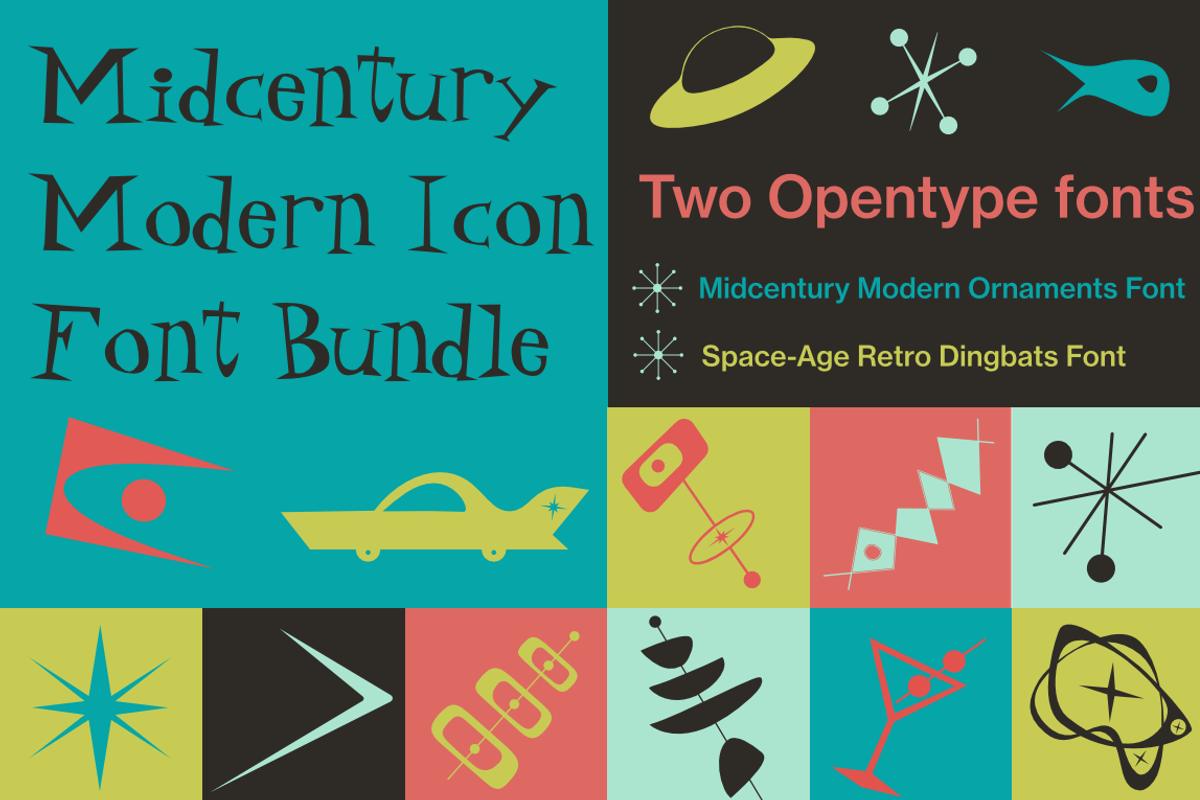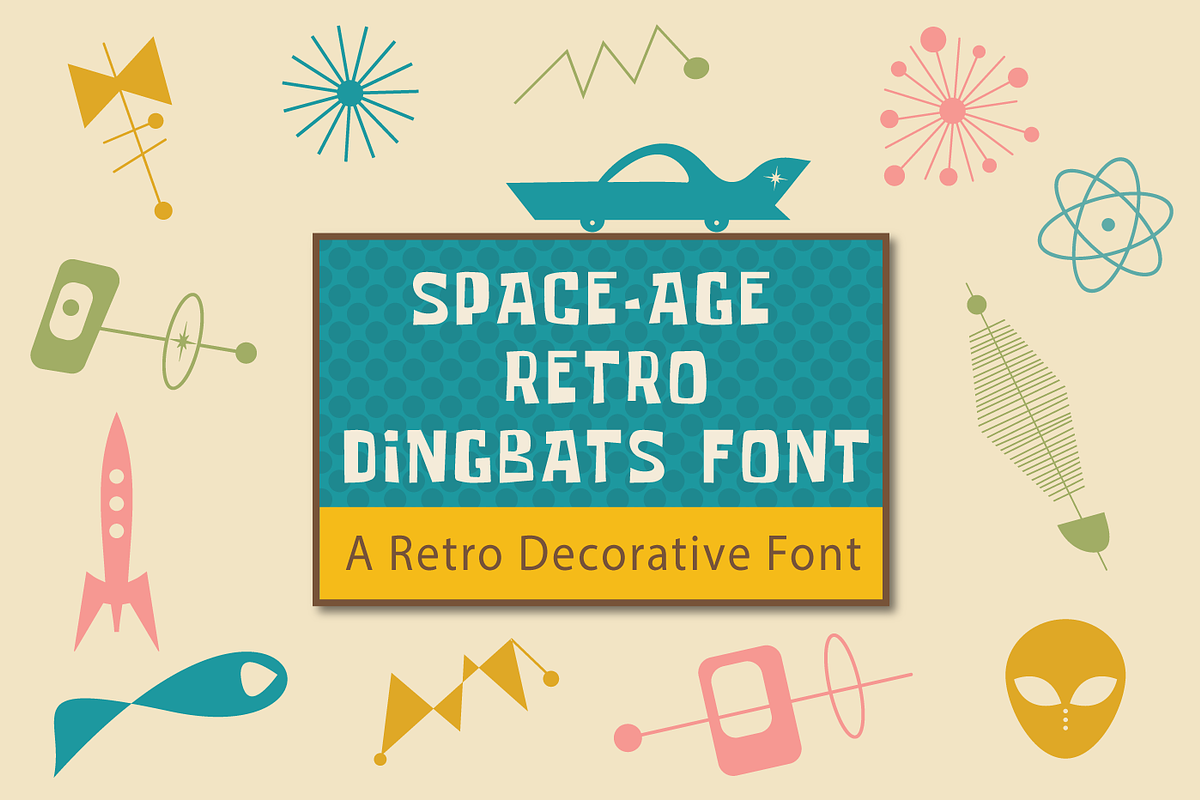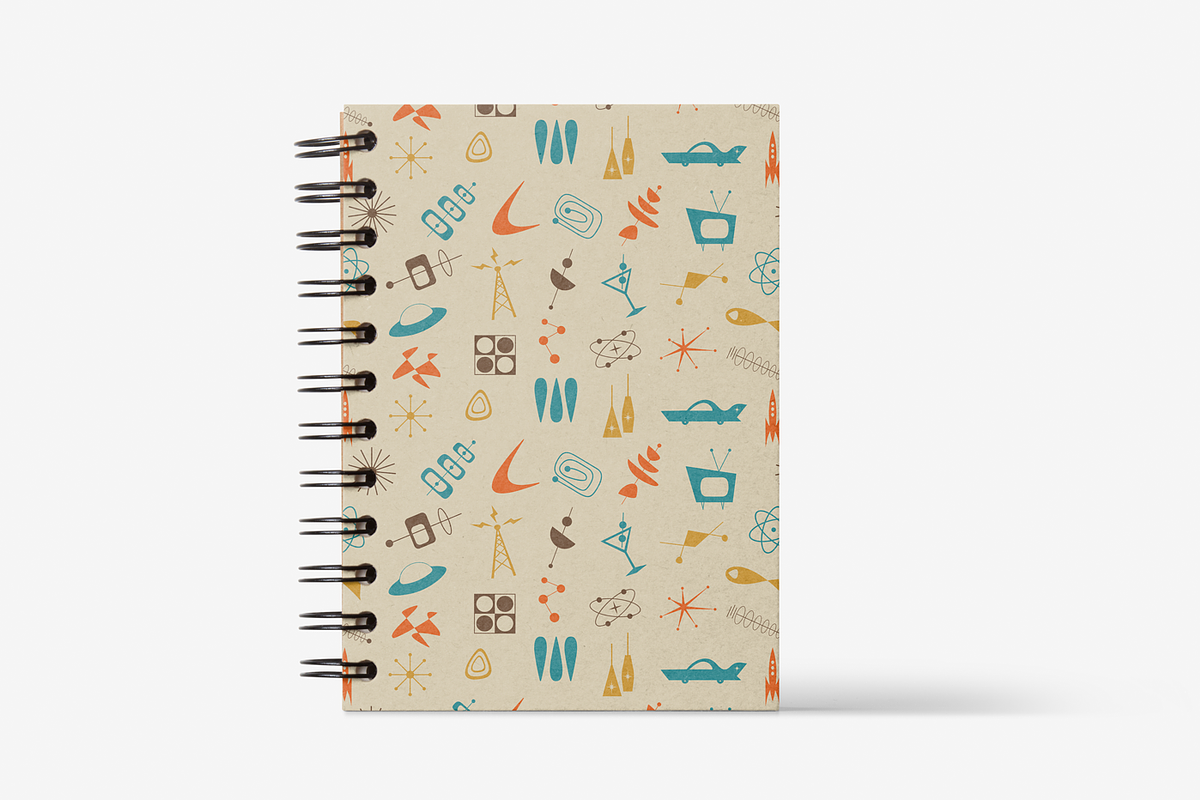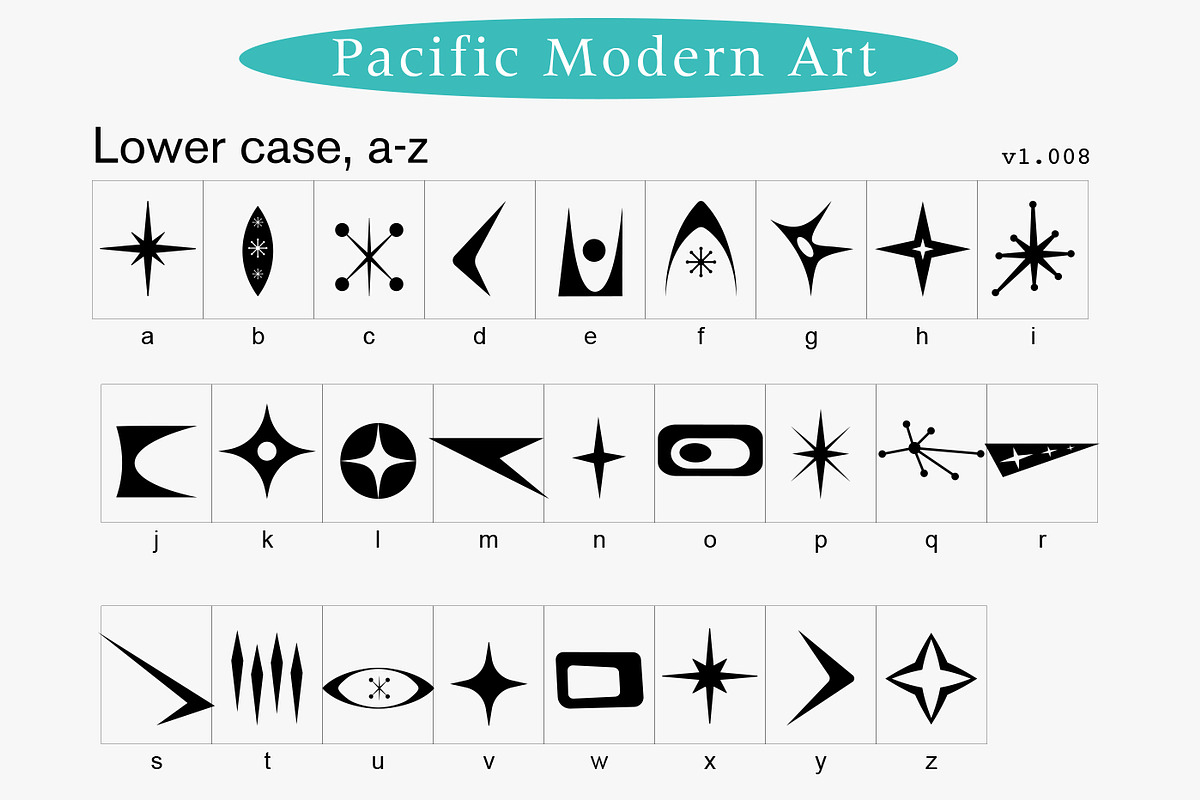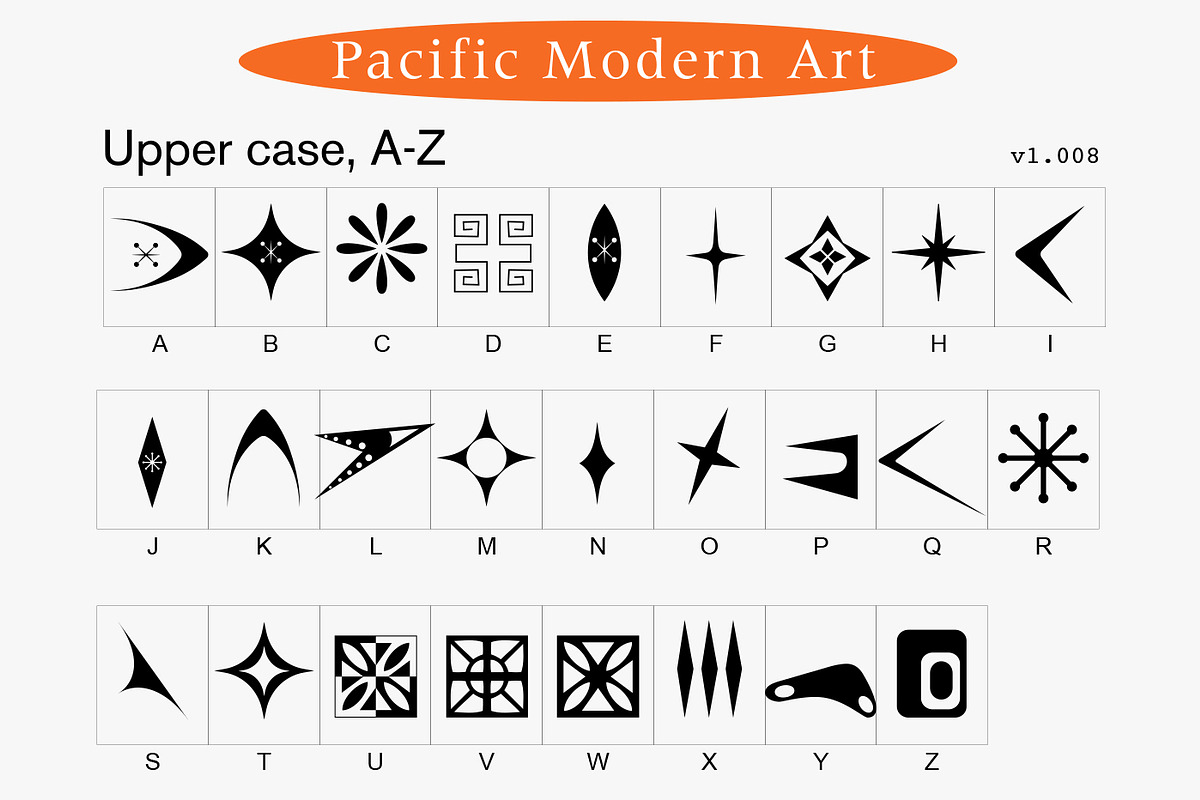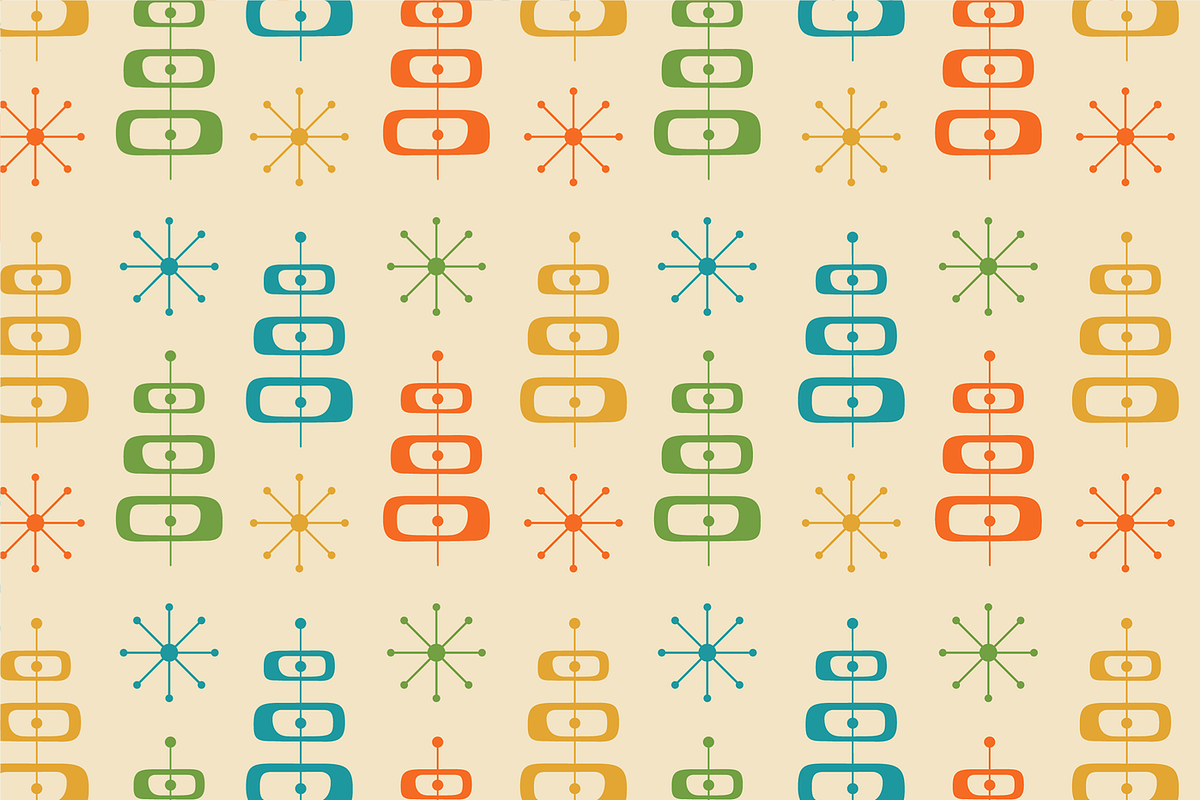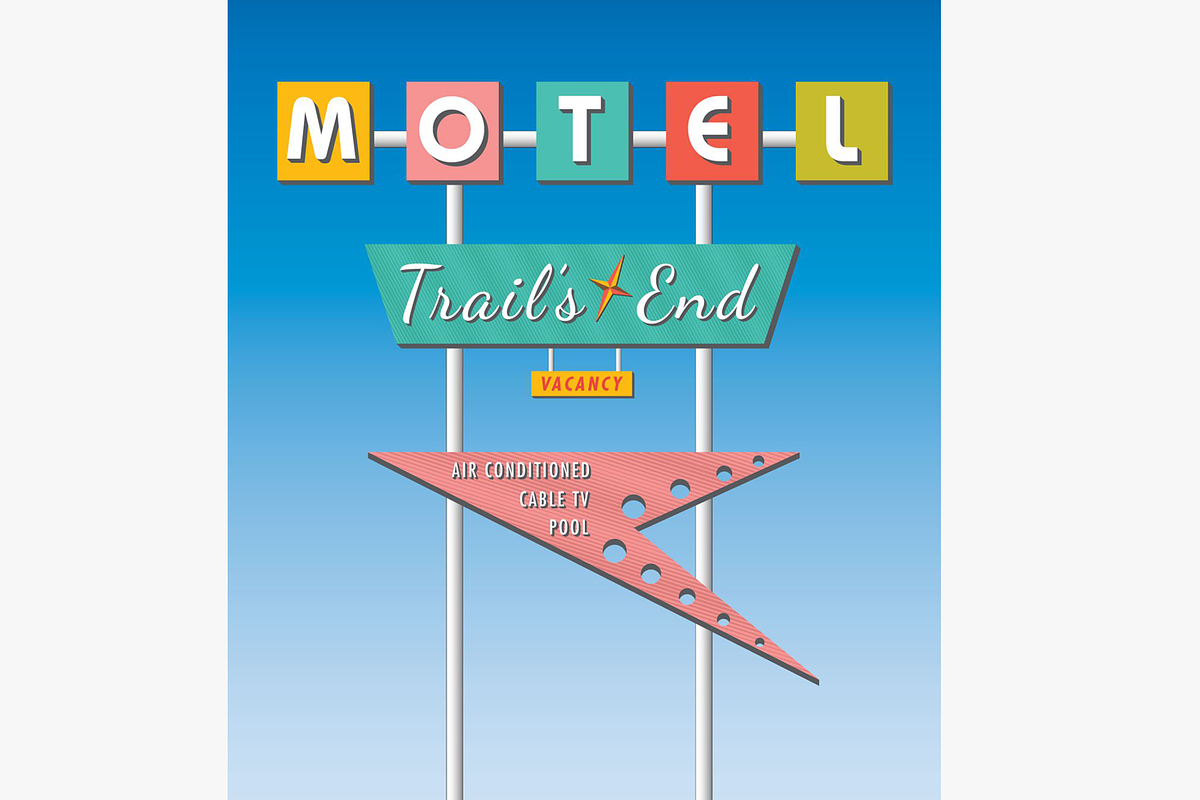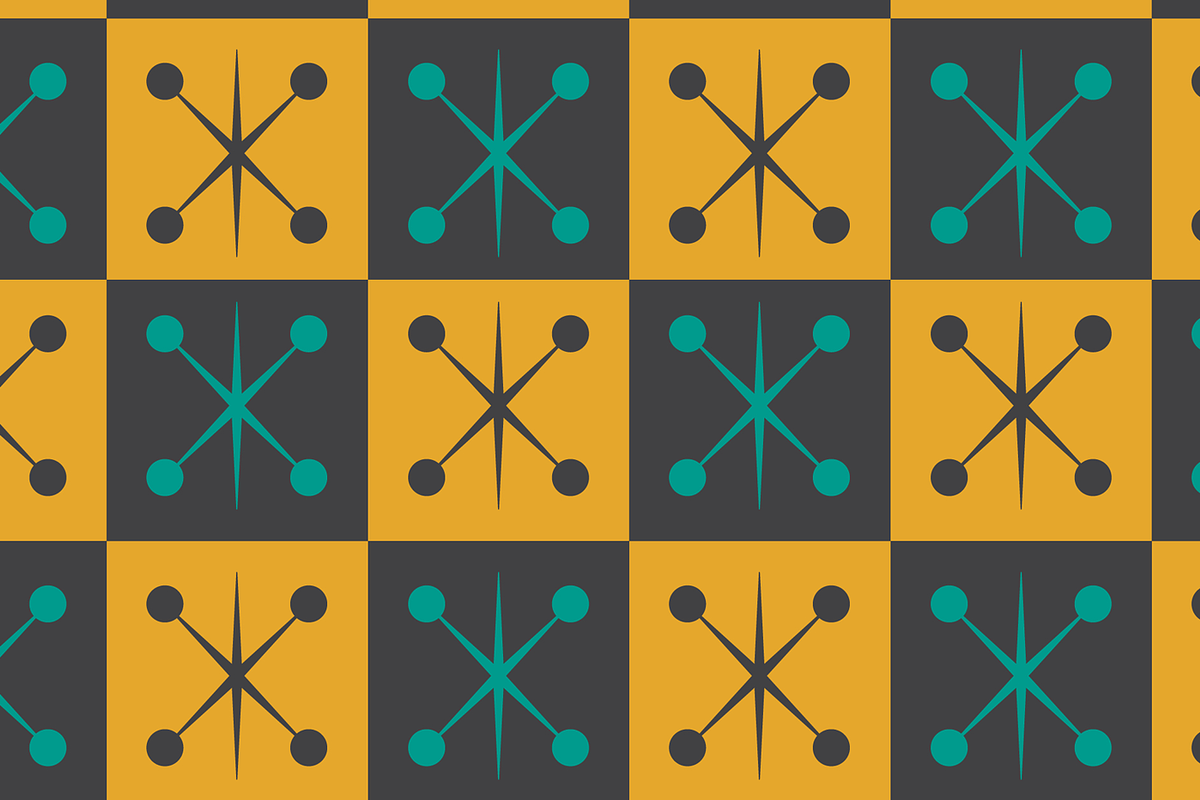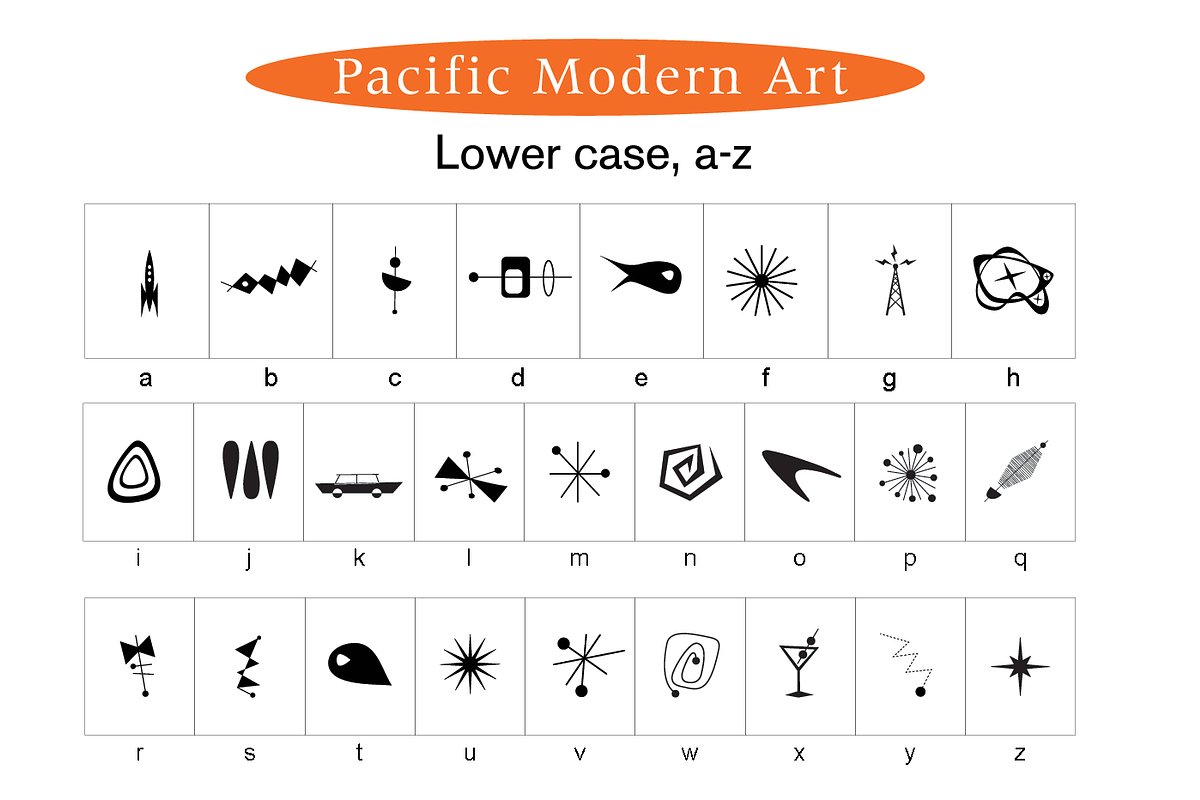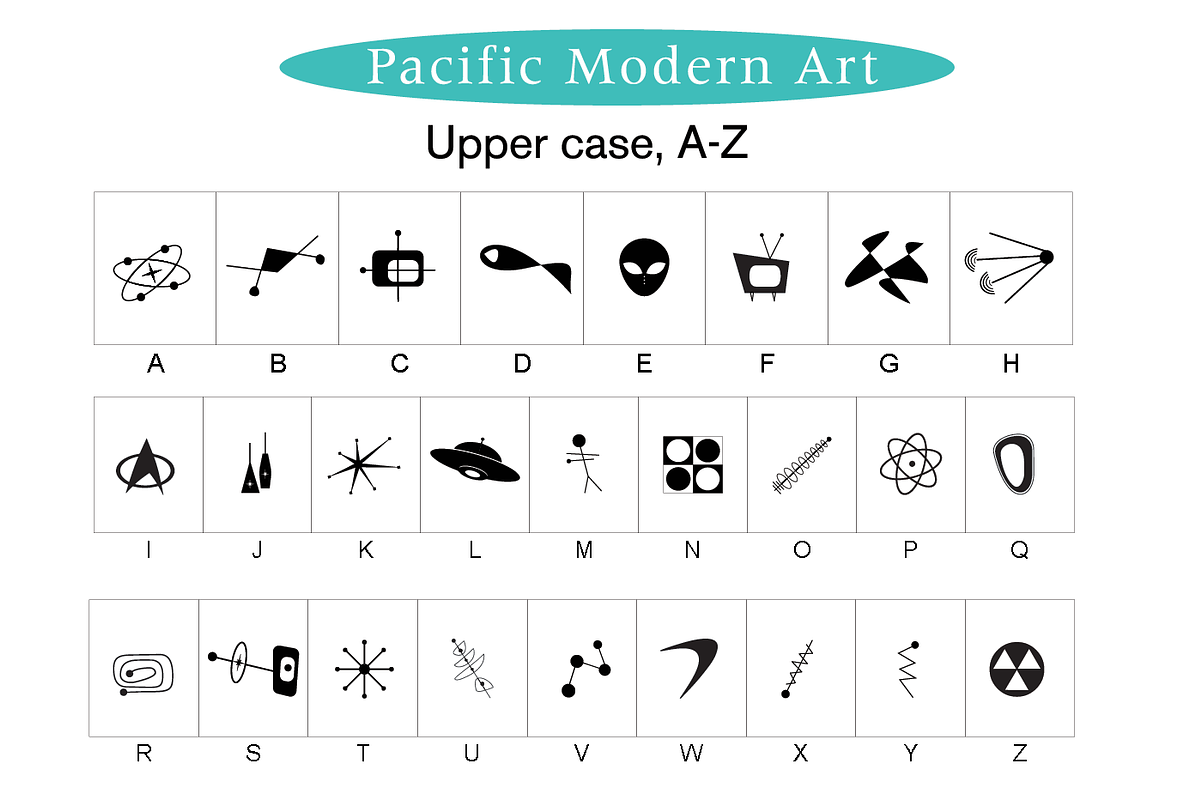
Midcentury Modern Icon Font Bundle
The Midcentury Modern Icon Font Bundle combines 2 icon symbol fonts in one bundle, the Midcentury Modern Ornaments Font and Space-Age Retro Dingbats Font.
✨ Space-Age Retro Atomic Goodness ✨ Two OpenType icon fonts packed with authentic midcentury modern shapes, boomerangs, atomic starbursts, sputnik icons, tiki mugs, martini glasses, and vintage TV-style graphics. Perfect for retro branding, 1950s/60s themed invitations, atomic ranch decor projects, sci-fi zines, and vintage-inspired logo design. Just type a letter to drop in a hand-crafted MCM icons, no illustration skills needed. Instant download, works in any program that supports OpenType fonts.